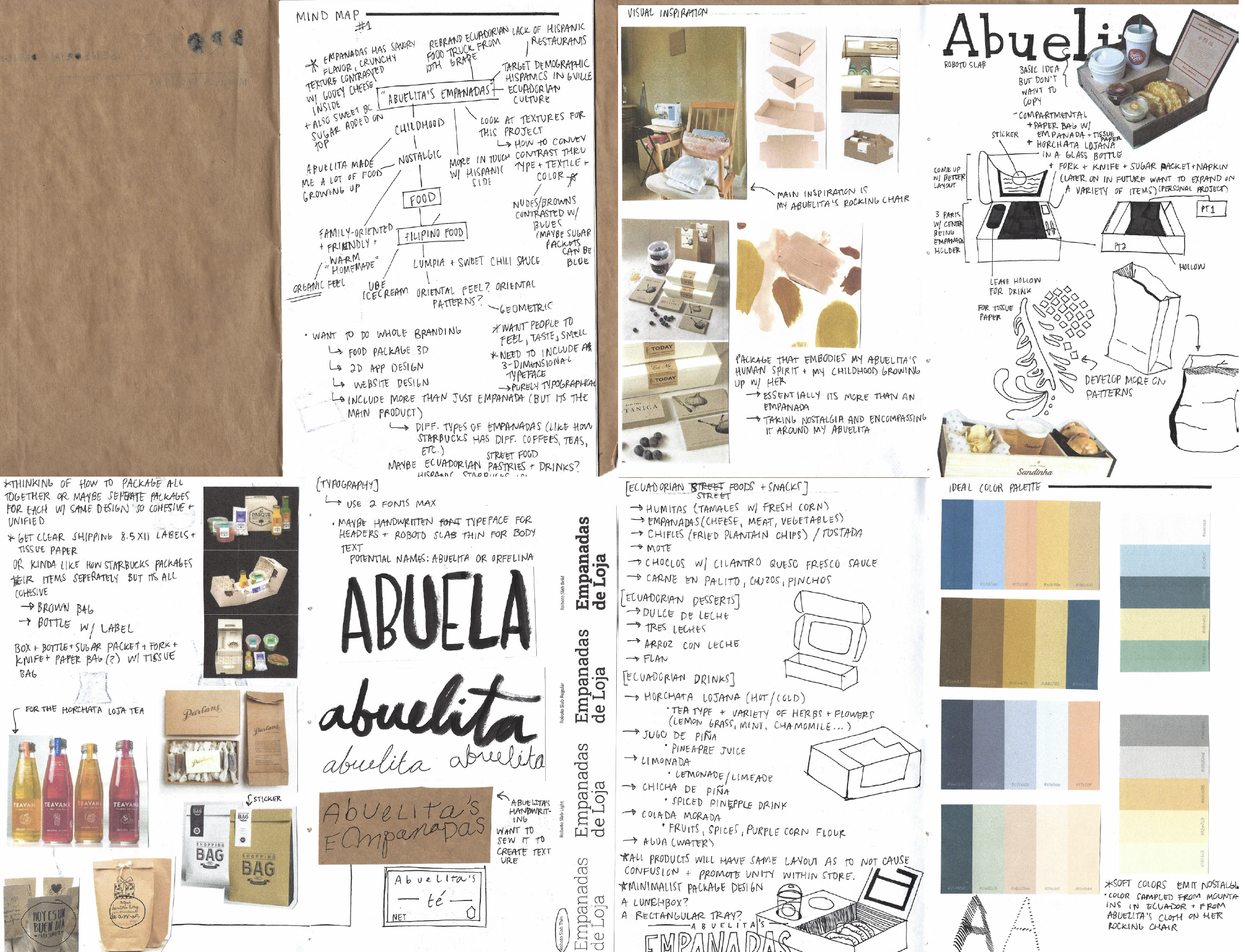
Orfelina’s Empanadas
Orfelina’s Empanadas is a self-initiated identity and packaging project celebrating the Ecuadorian empanadas de queso con azúcar blanca made by my Abuelita.
Scope included brand storytelling, logotype creation, and the design of a tactile packaging suite meant to evoke memory, warmth, and cultural pride.
Approach
Inspired by the principles of 3D design, the branding explores tactile materials and emotional cues through packaging and handmade details. I combined typographic storytelling and technical construction to craft a nostalgic yet vibrant identity.
Outcome
The final deliverables include a hand-sewn tote bag logo, individual and group packaging boxes, a sugar packet, a Horchata Lojana iced tea bottle, and branded business cards. Together, they create a cohesive visual experience rooted in cultural memory and personal connection.